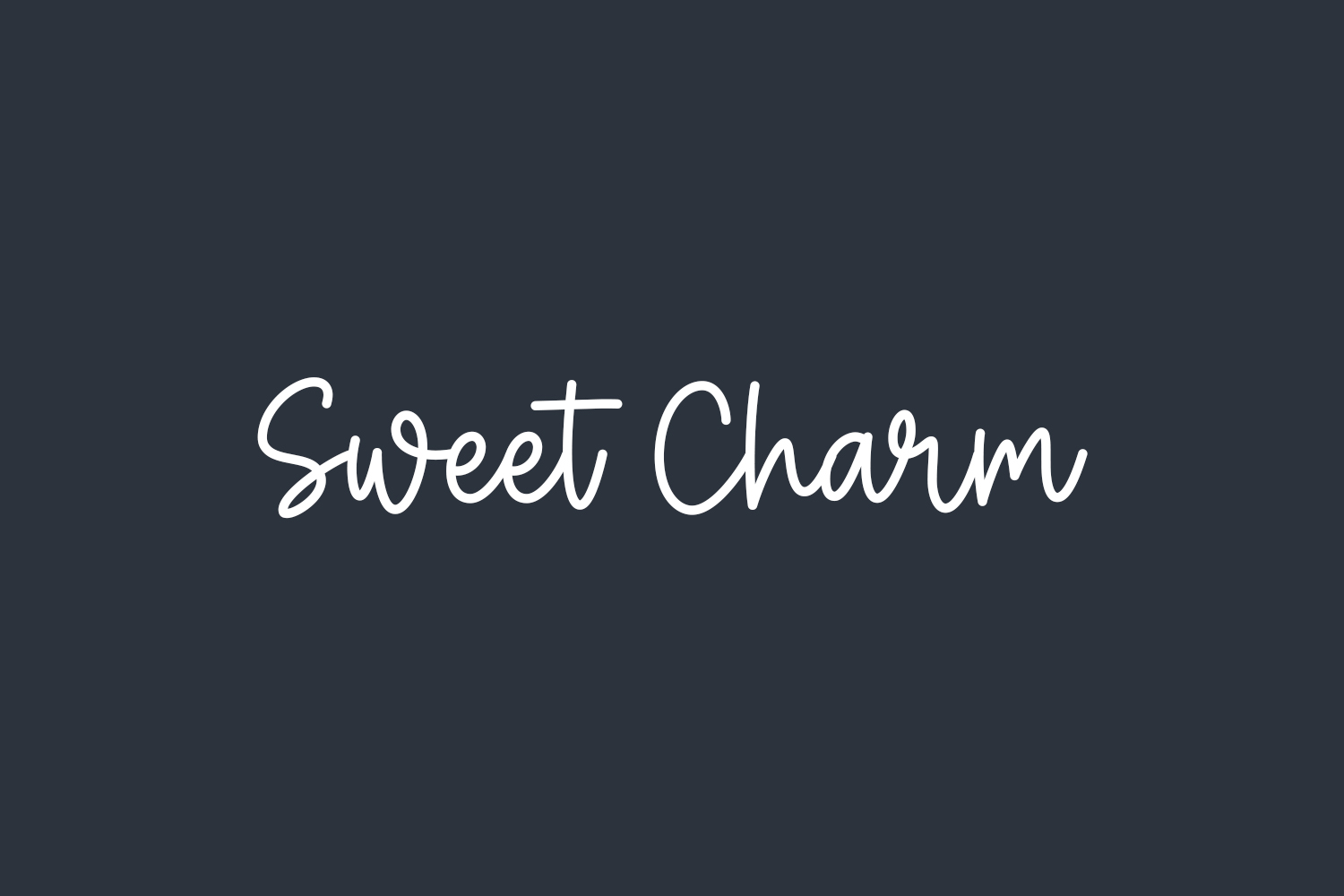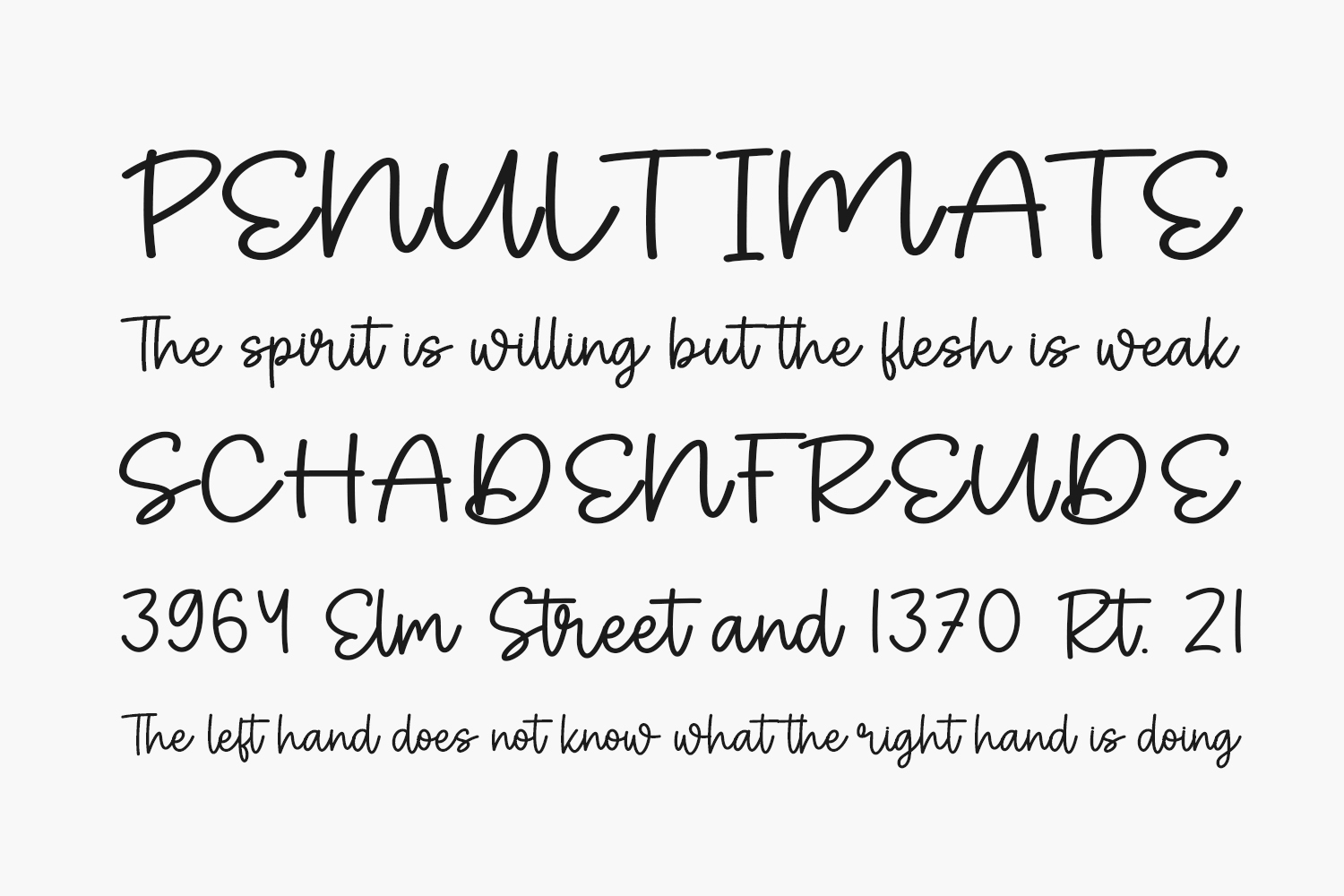
Sweet Charm Free Font embodies elegance with its beautiful, harmonious, and graceful script font. Characterized by its seamless curves, this font is an ideal choice for elevating fashion branding or enhancing editorial designs with a touch of sophistication. Download the font for free if you need it for personal use or purchase the full version for commercial use.